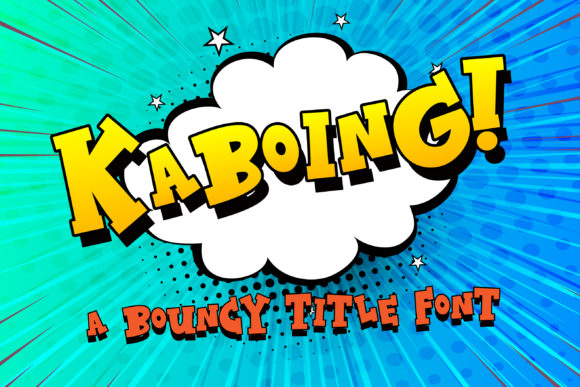
Welcome to the world of Kaboing, a display font that sets your creativity ablaze and adds a touch of exhilarating fun to your designs! Experience the thrill of a comic-style font that bursts with character and personality. Journey into the realm of imagination, where Kaboing's unique flavor inspires you to create captivating visuals and enthralling storytelling. Dive into the boundless possibilities, letting your designs take center stage with this vibrant font.
Kaboing is not just a font; it's a gateway to unleash your inner artist, a tool to bring your visions to life. With its bold and playful strokes, Kaboing transforms ordinary words into captivating expressions, making them jump off the page with dynamic energy. Its distinct style adds an irresistible charm to logos, posters, social media graphics, and branding projects.
If you seek to captivate your audience, look no further! Kaboing's energetic presence commands attention, leaving a lasting impression that lingers in the minds of your viewers. It's the perfect choice for those who dare to stand out, break free from the mundane, and embrace the extraordinary.
Step into the realm of creativity and let Kaboing ignite your passion for design. Discover the joy of creating visuals that speak volumes, captivating your audience with every stroke. Embrace the boundless possibilities of expression, and let Kaboing be your guide to a world of imagination and visual delight.